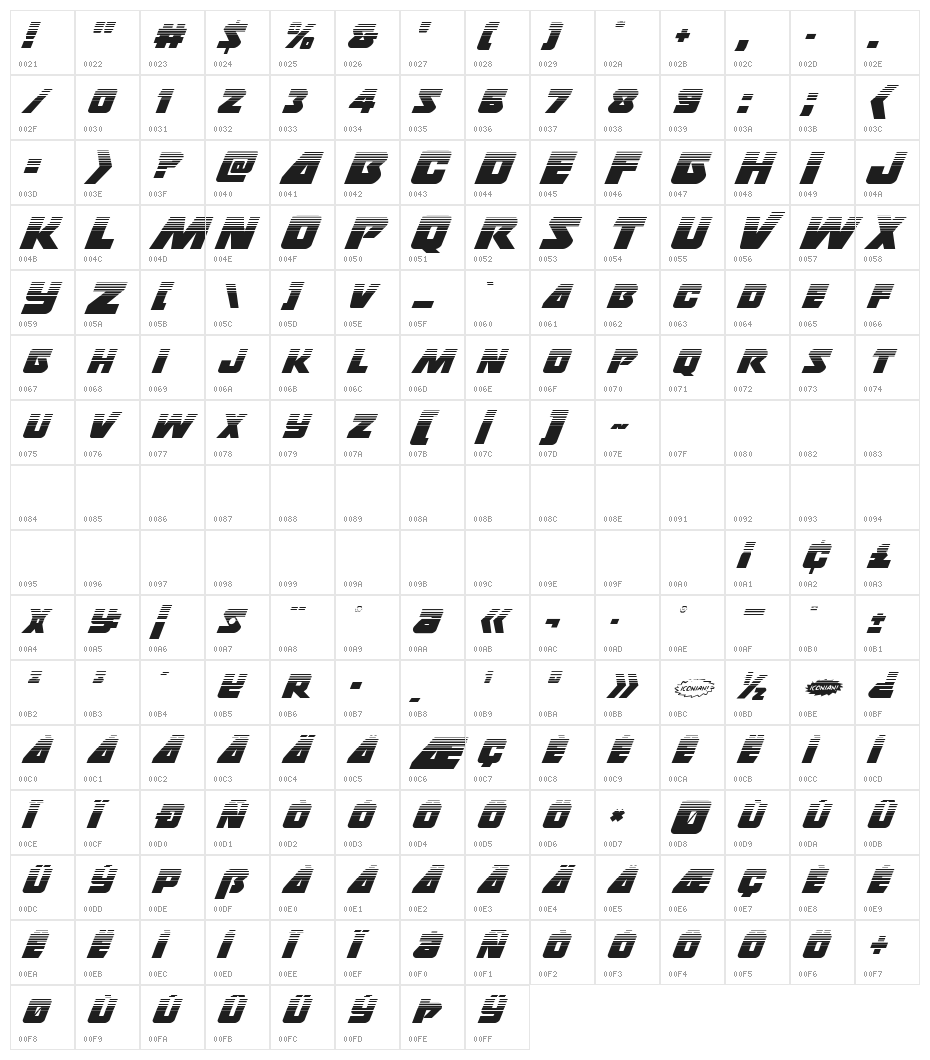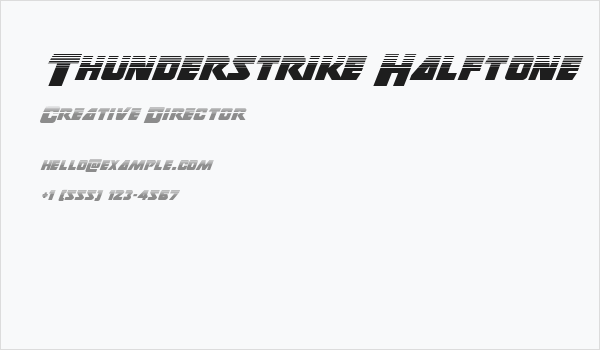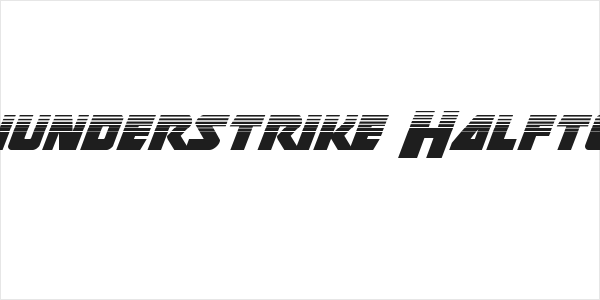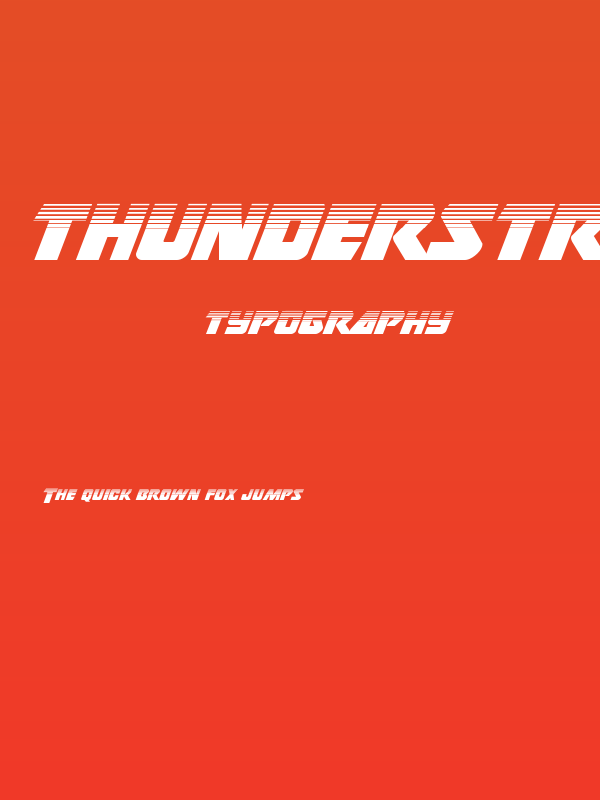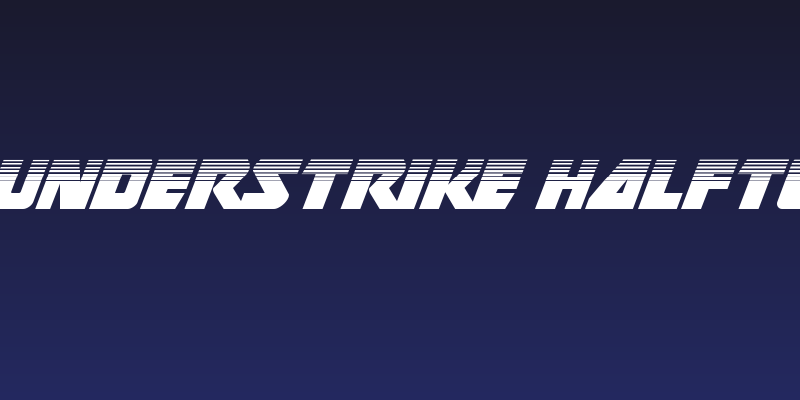
Thunderstrike Halftone Font
Thunderstrike Halftone Description
This dynamic and bold font features a striking halftone effect, giving it a sense of movement and energy. The uppercase and lowercase letters are designed with a futuristic flair, characterized by sharp angles and a slanted orientation. The numbers and special characters maintain this energetic style, making the font suitable for attention-grabbing designs. The halftone pattern adds a unique texture, enhancing its visual appeal and making it stand out in any project.